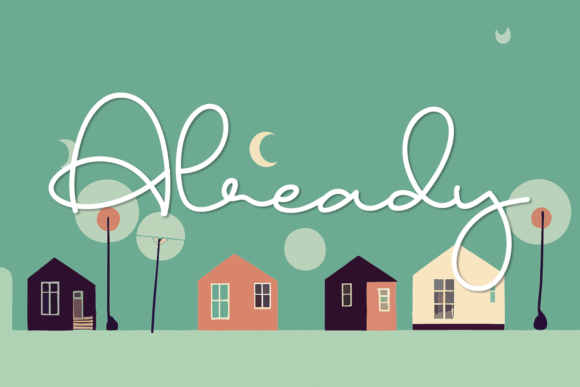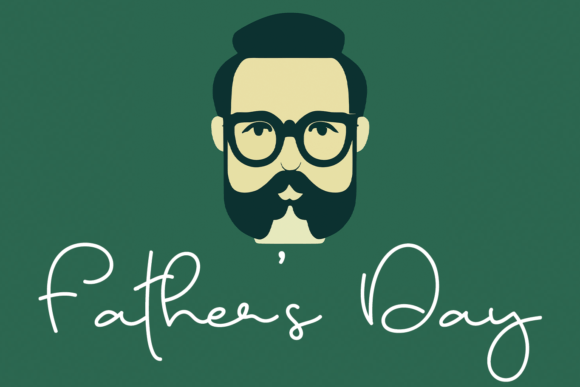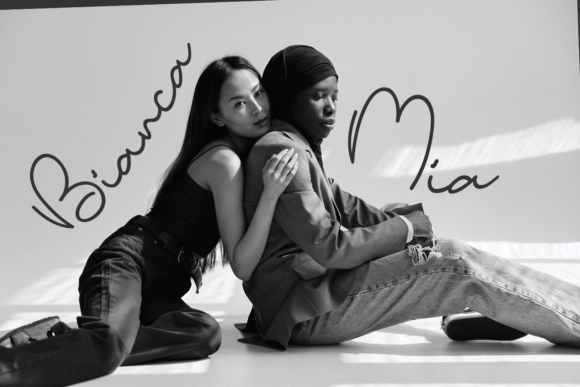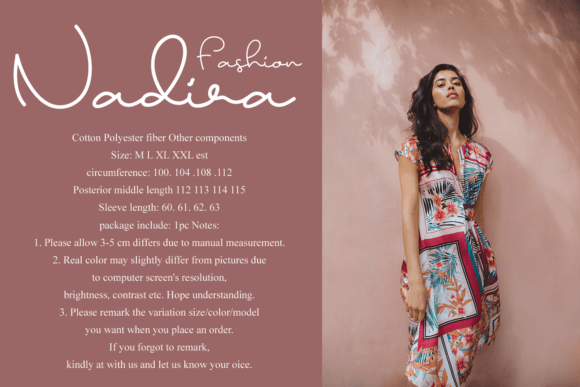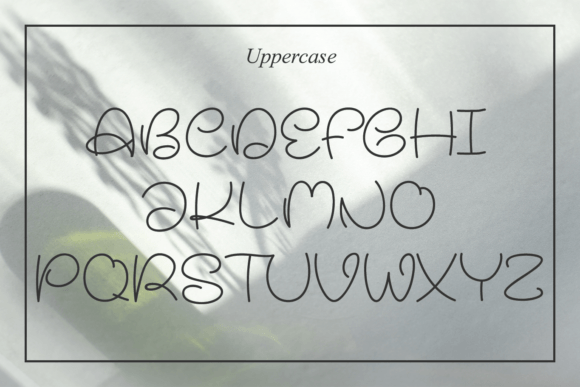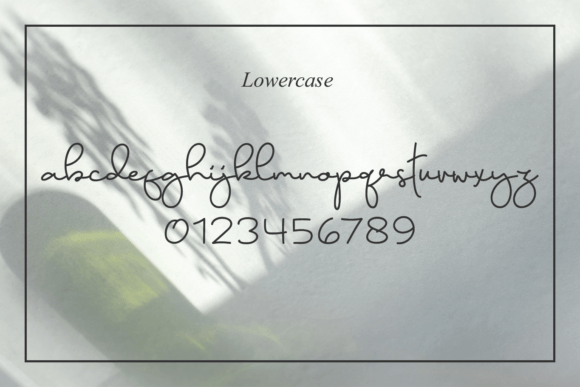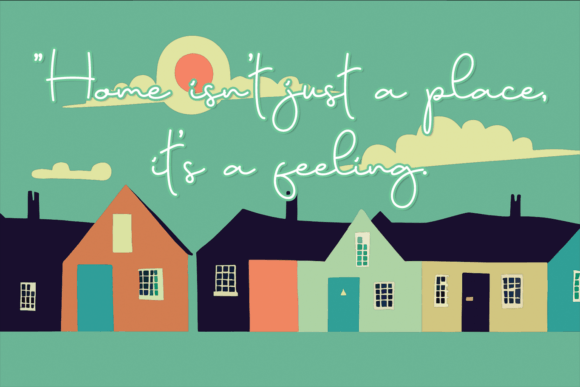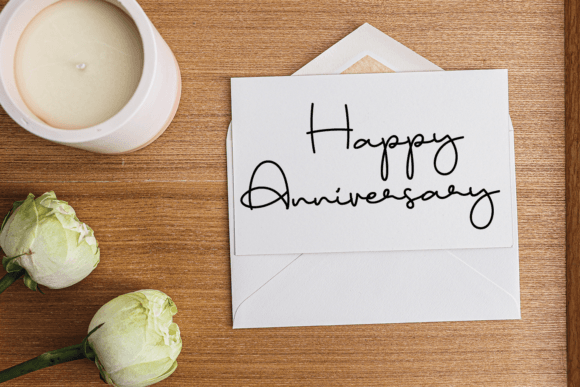
Already Font
About Already Font
Already is a thin-lettered handwritten font masterfully crafted to become a true favorite. Contemporary and fresh, it is perfect for any design you wish to create. Add it to your creative projects and make the outstanding!